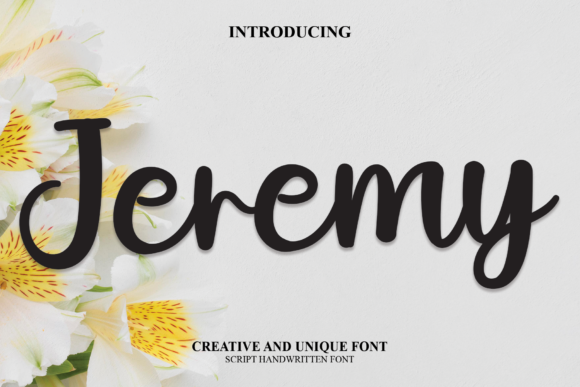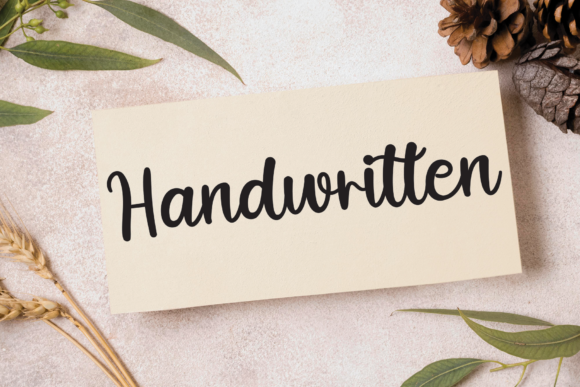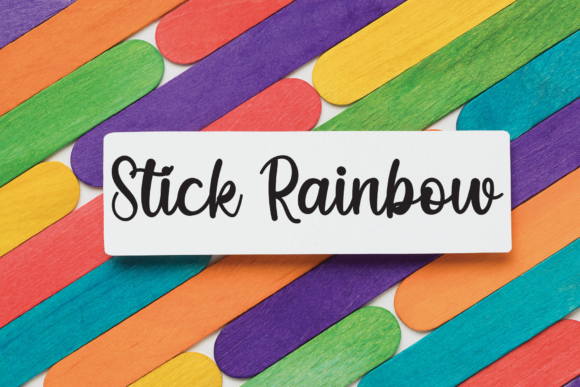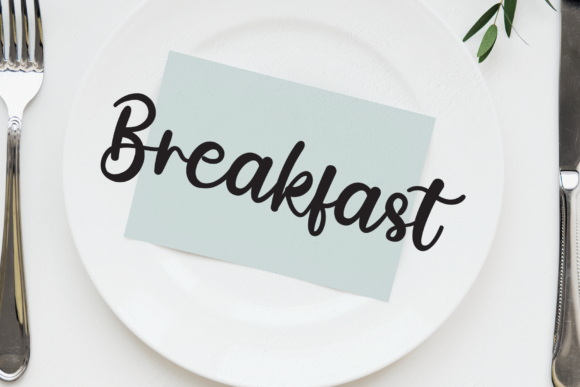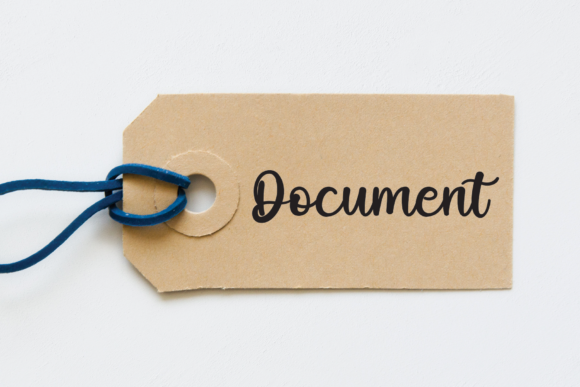
Jeremy Font
About Jeremy Font
Introducing a simple and thin case script font, this elegant typeface is designed to captivate and enhance a wide range of design projects. Its charm lies in its ravishing style, making it a perfect choice for creating stunning wedding invitations, beautiful stationary art, and engaging social media posts. With its timeless appeal, this font has the potential to elevate the visual aesthetics of various design endeavors.
The font’s simplicity is its strength, offering a clean and refined look that adds a touch of sophistication to any project. The thin, delicate strokes contribute to its overall elegance, making it particularly well-suited for creating gorgeous wedding invitations. Imagine the font delicately adorning the details of a wedding celebration, setting the tone for a romantic and memorable event.
Notably, this font is PUA encoded, which opens up a world of possibilities for designers. PUA encoding allows easy access to a plethora of amazing glyphs and ligatures. This feature enhances the creative freedom of users, enabling them to experiment with different letterforms and stylistic elements, making each design unique and personalized.
The versatility of this font extends beyond wedding invitations. Its beauty can enhance various stationary art, providing a timeless and sophisticated look to letterheads, business cards, and other branding materials. The script’s engaging nature makes it equally suitable for social media posts, where its elegant style can capture attention and convey a sense of refinement.
For designers seeking a font that seamlessly integrates with diverse design projects, this script font offers a harmonious blend of simplicity and sophistication. Its thin case design ensures readability while maintaining an air of delicacy. The ligatures and glyphs, easily accessible through PUA encoding, provide an additional layer of creative expression.
In conclusion, this simple and thin case script font is more than just a typographic choice; it’s an embodiment of elegance and style. Fall in love with its ravishing charm and unlock a world of design possibilities as you create gorgeous invitations, stationary art, social media posts, and more. Let this font be the brushstroke that adds an extra layer of beauty to your creative canvas.